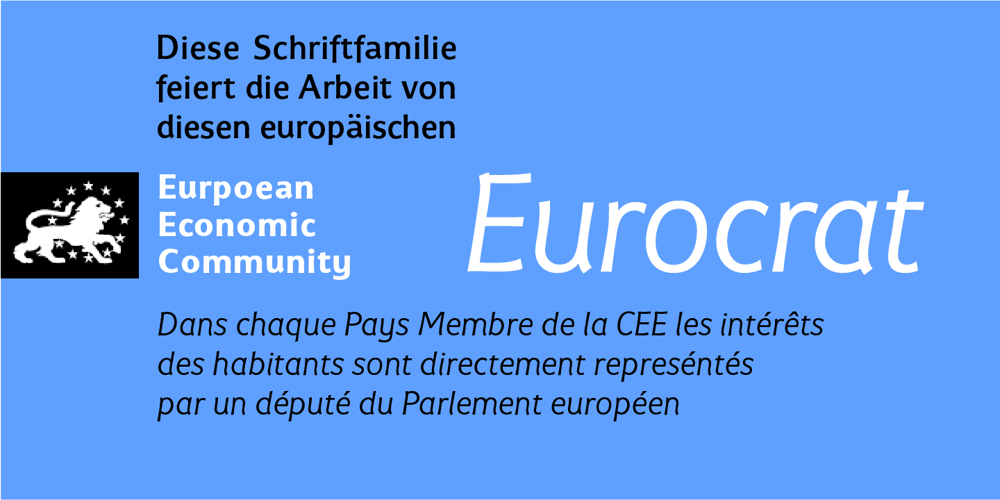
Eurocrat
Eurocrat font
Eurocrat Font Family was designed by Adrian Williams and published by Club Type. Eurocrat contains 12 styles and family package options. Everyone in each member country of the European Economic Community is represented by a Member of the European parliament. An MEP. The Eurocrat font family celebrates the work of these Eurocrats. Several features have been incorporated which, together, go to make a characteristically European style without any single one being dominant.